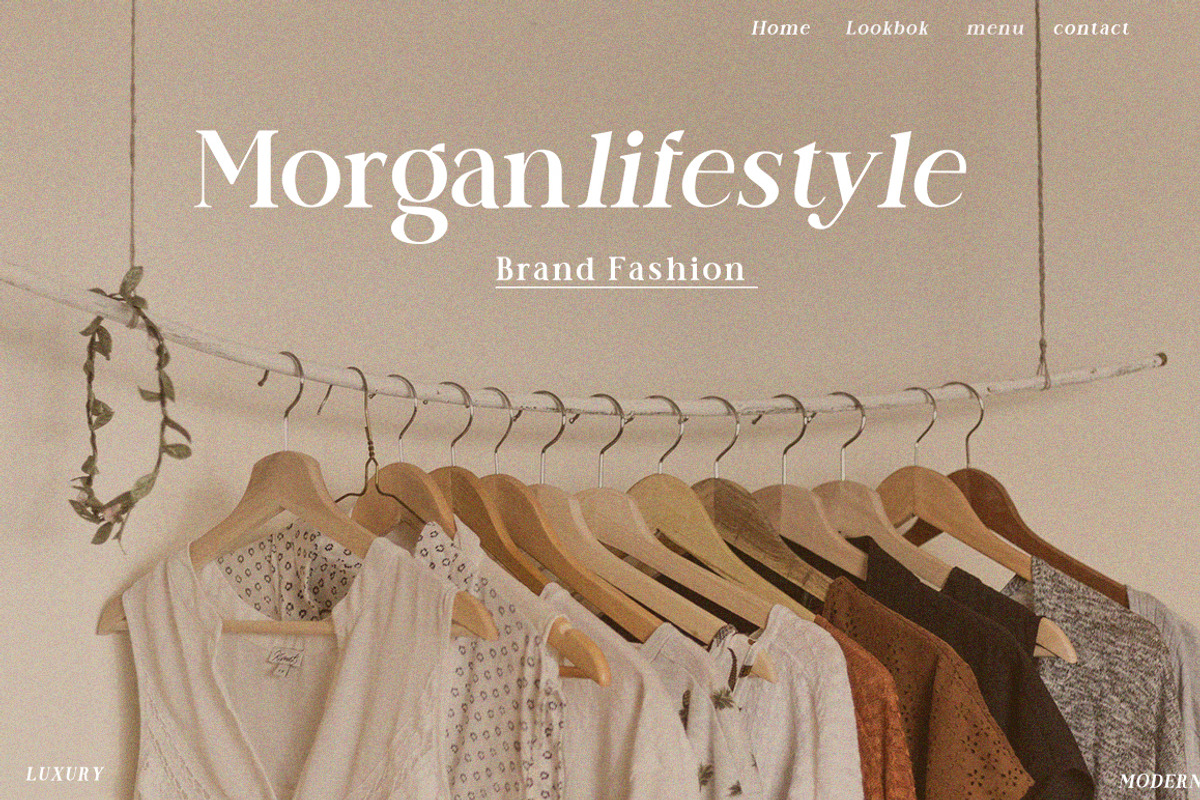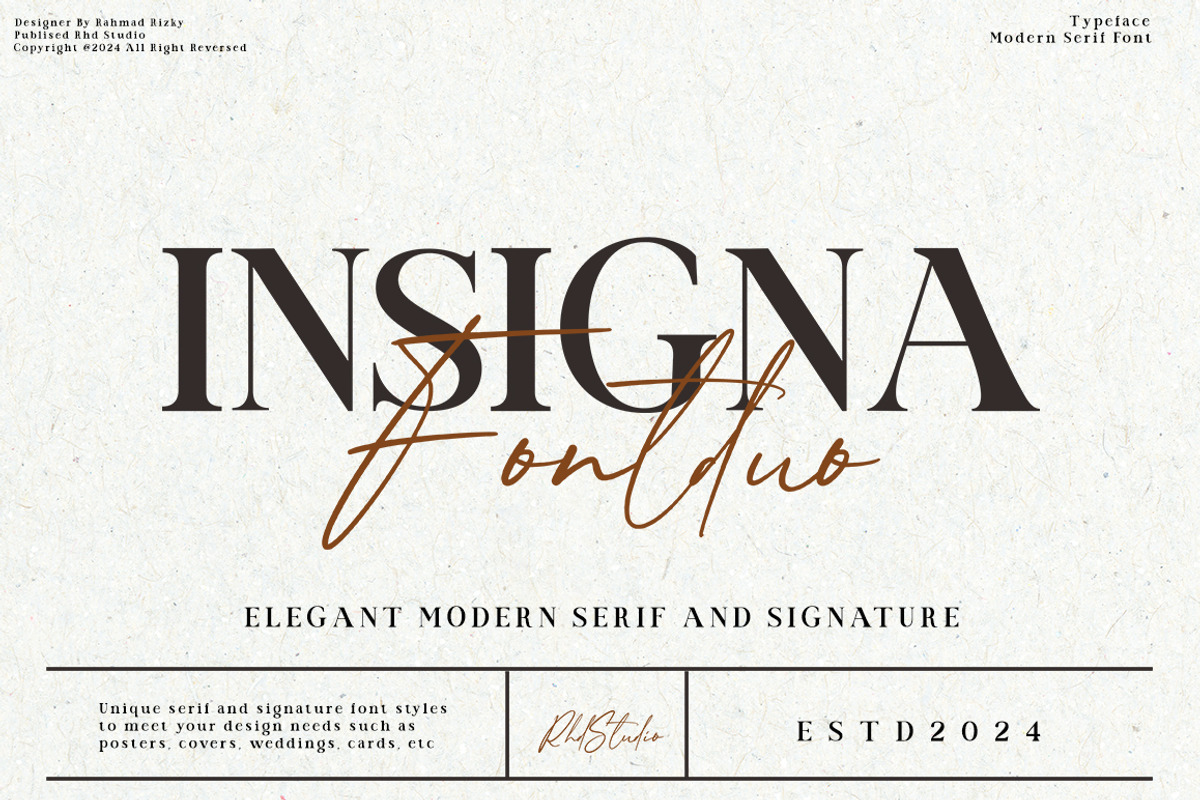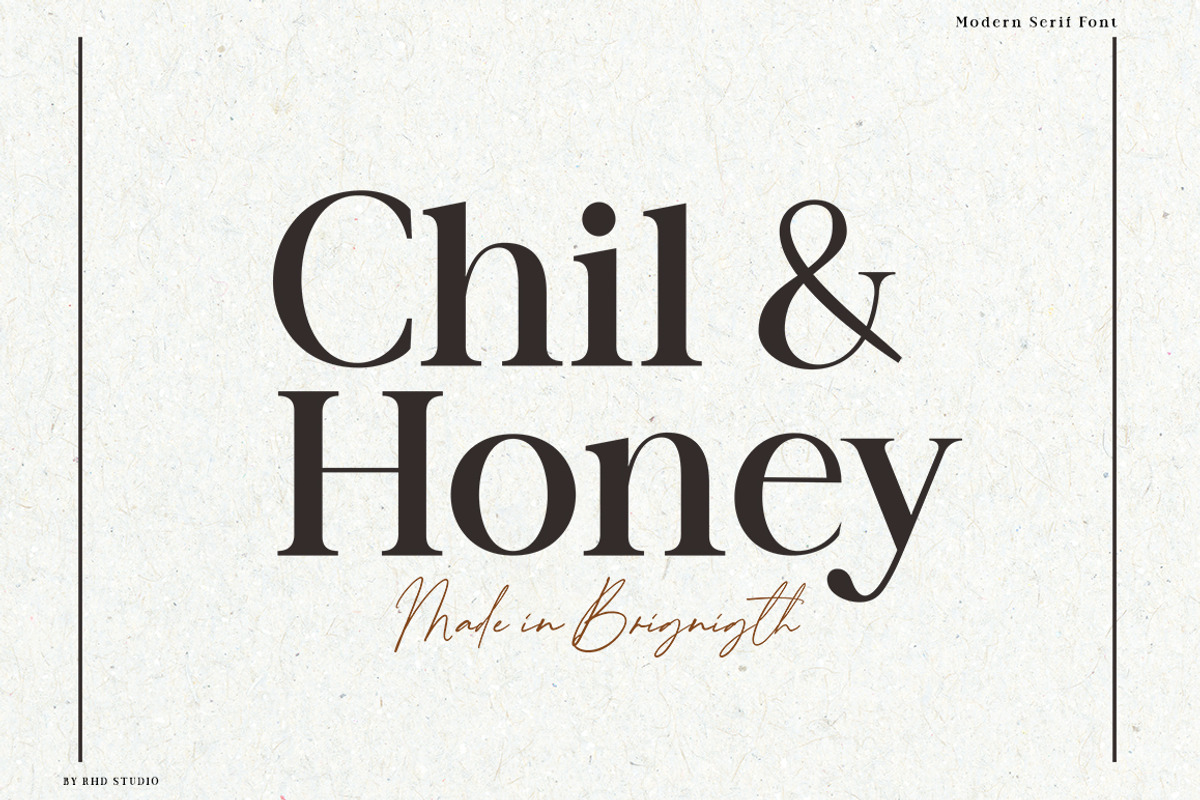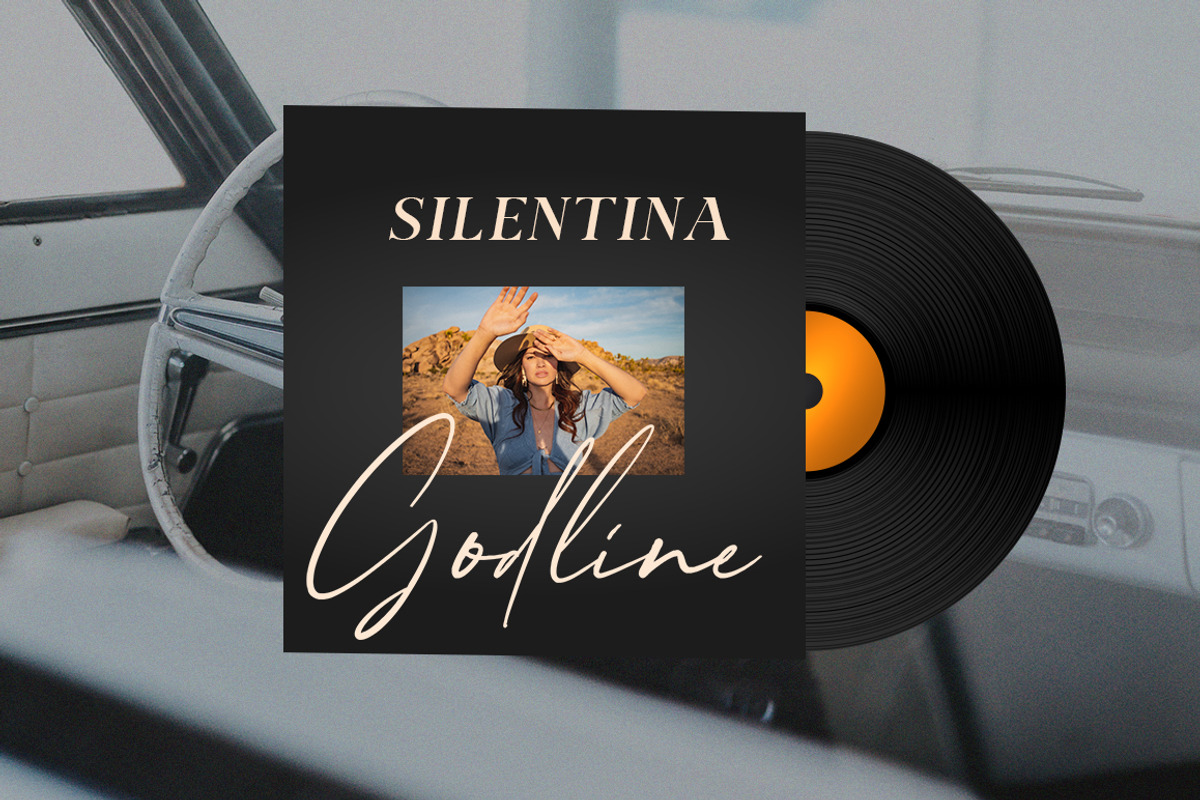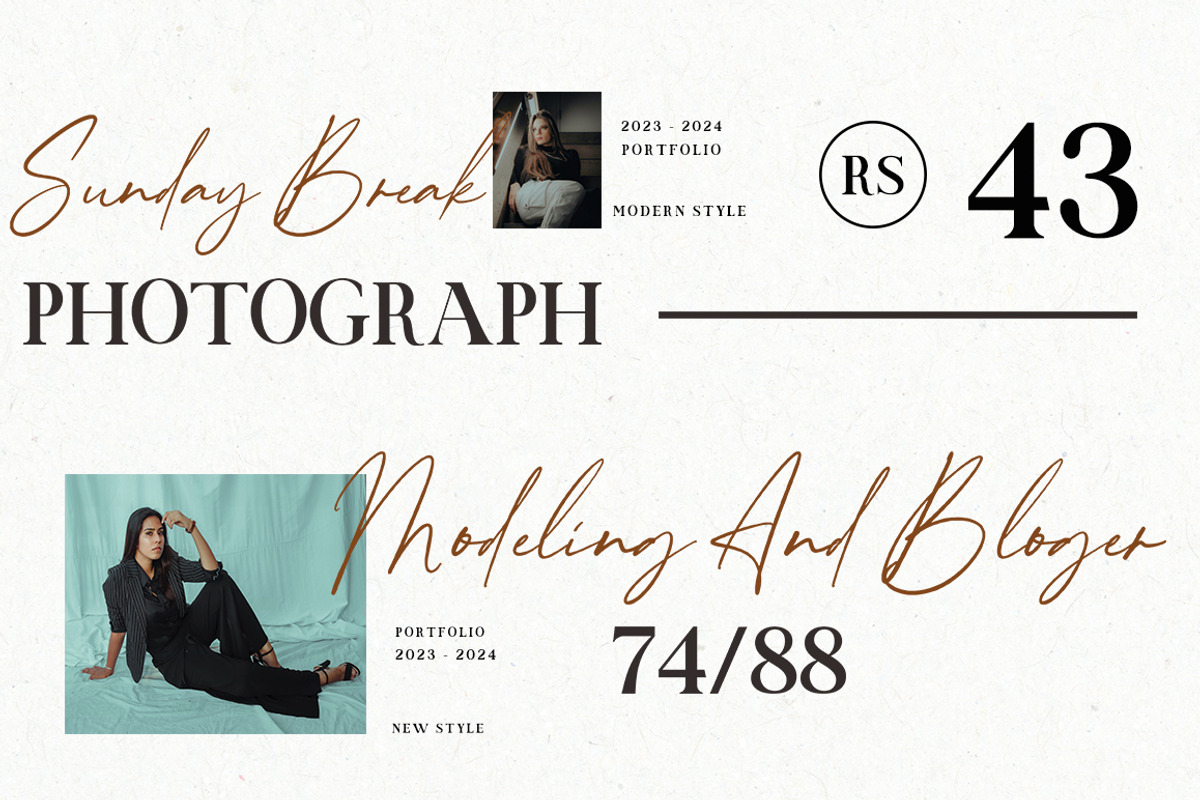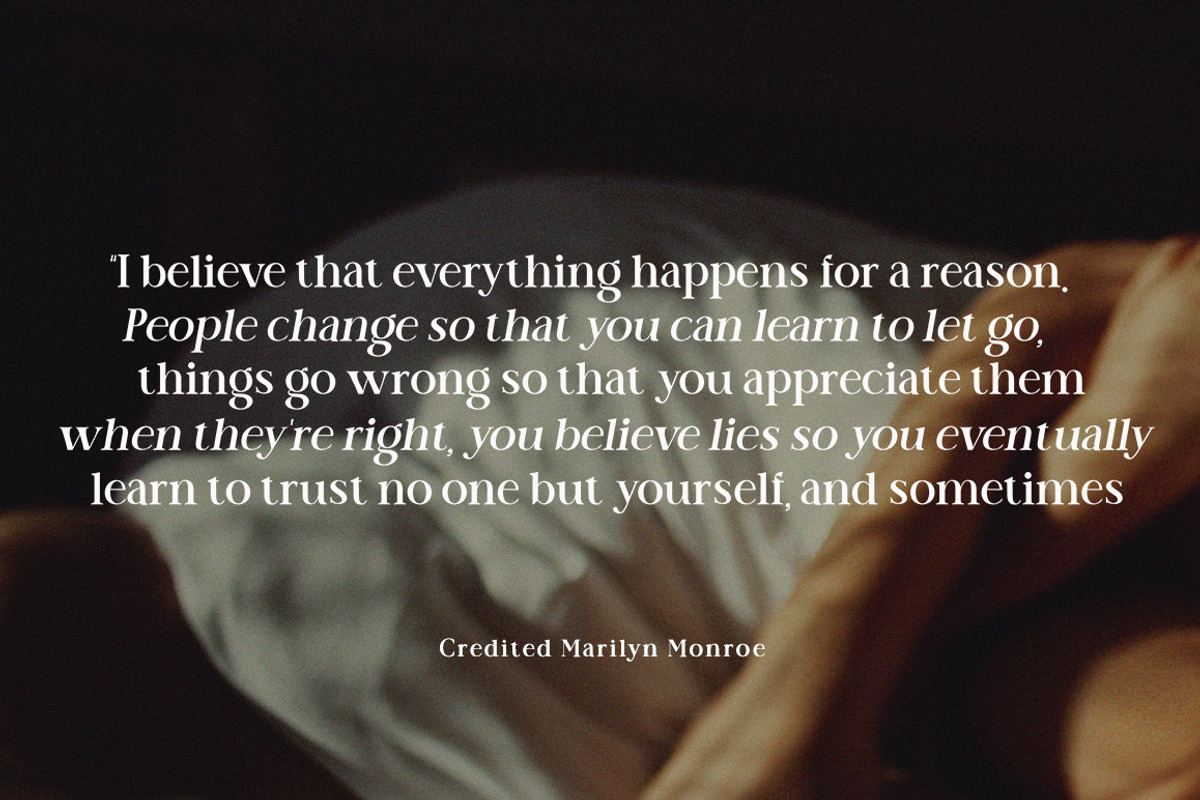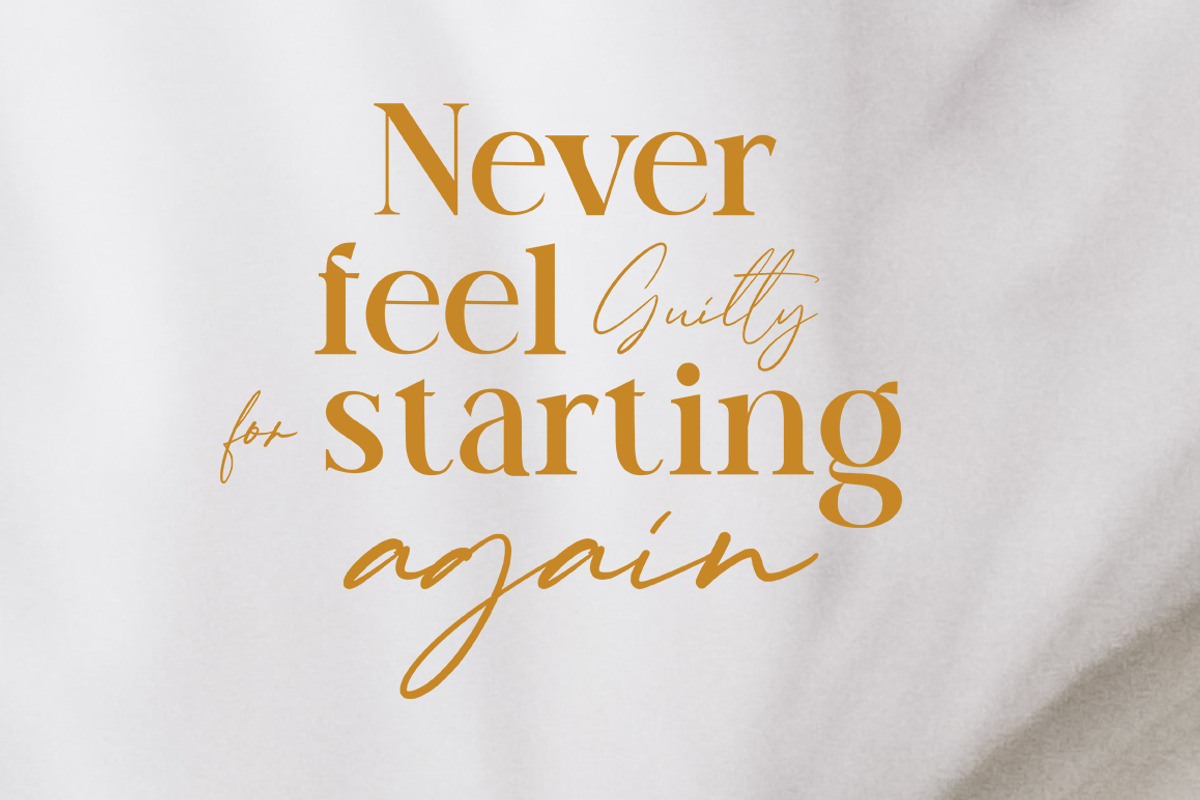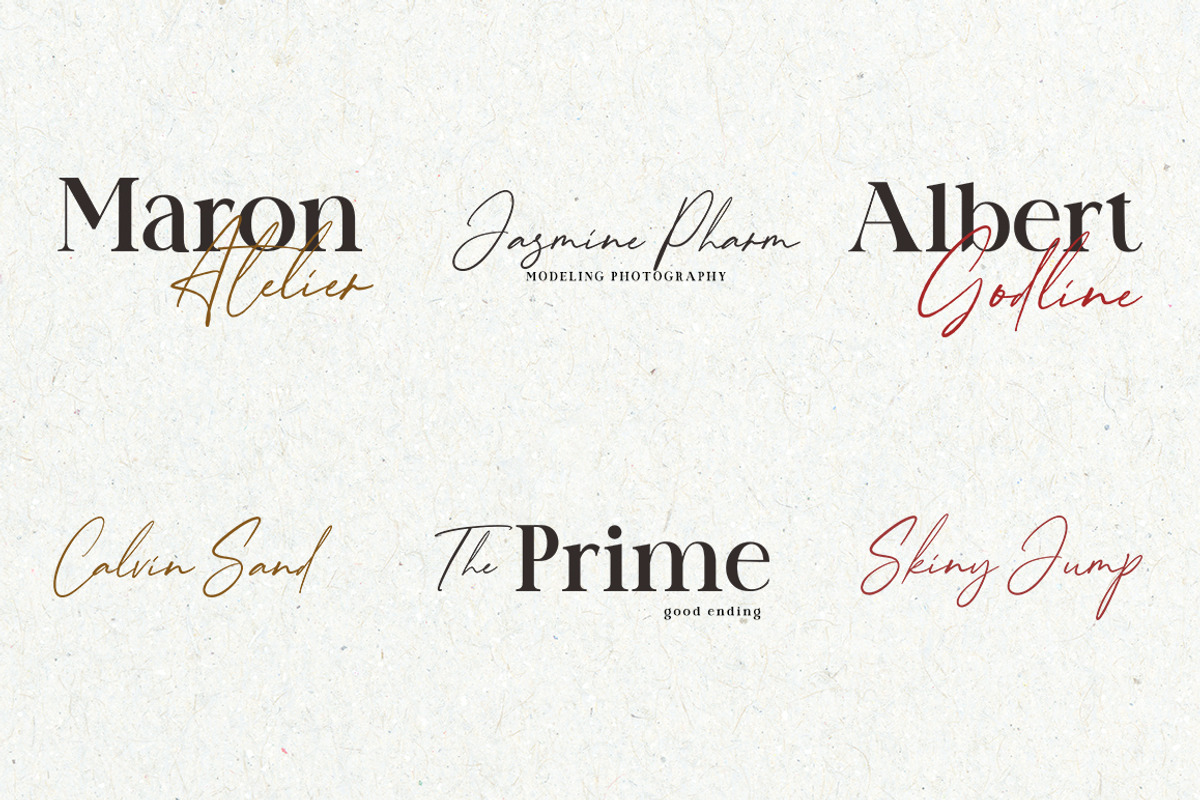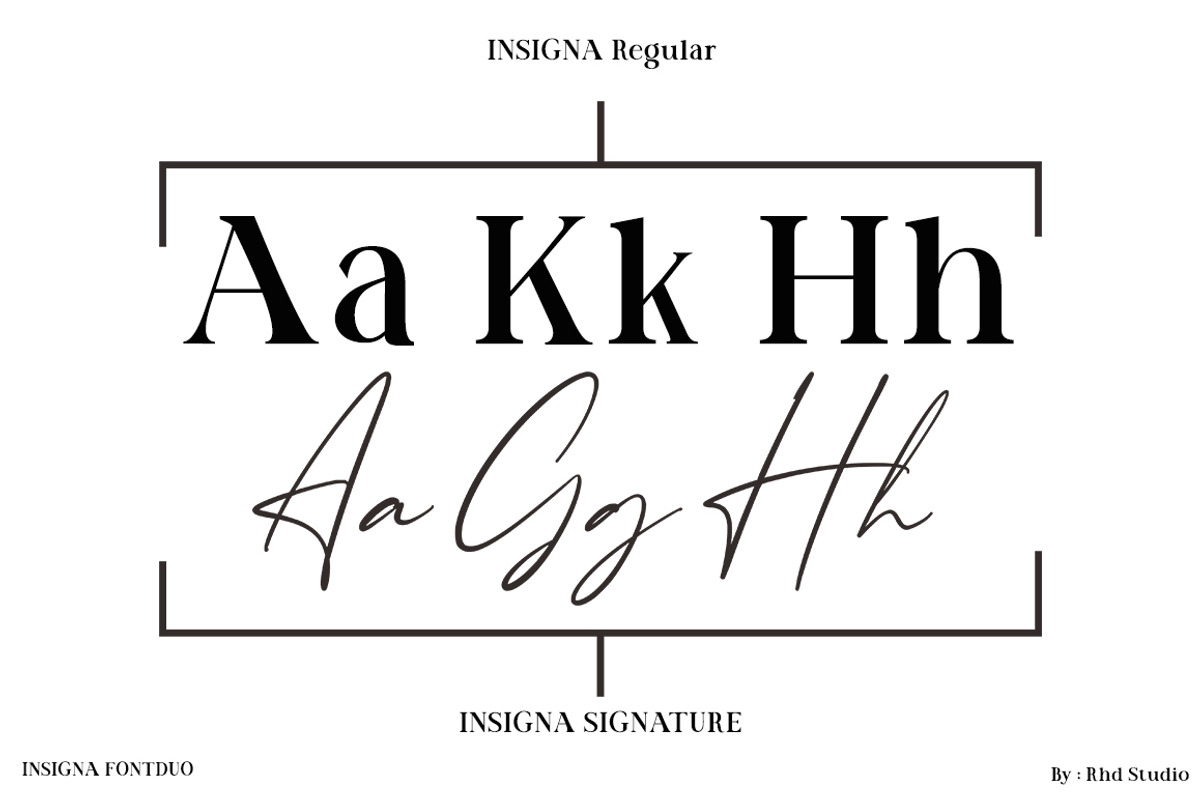
Insigna Font duo
Meet Insigna Font Duo: A modern, minimalist sans-serif typeface combined with classy, inky handwriting. With casual elegance, Insigna Font Duo adds a luxurious, clean touch to websites, logos, brand identities, social media quotes, wedding stationery, and anything else you can dream up!
Take the hassle out of finding font matches by using Insigna Font Duo, where sans and script are made to match!